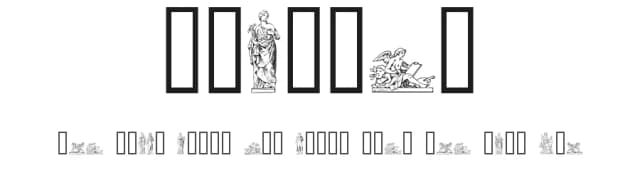
About Oktober 98 Font
Oktober 98 is a dingbat font designed by Listemageren. It includes 25 glyphs, a regular weight, and TTF (TrueType) format. Oktober 98 is free to download; check the license details on this page before commercial use. Dingbat fonts like Oktober 98 work best for icons, ornaments, bullet points, and decorative accents.
Oktober 98 Font is a versatile dingbats font that works for both headings and body text. Pair it with a contrasting sans-serif or serif font to add visual interest and a clear distinction between titles and body copy.
Oktober 98 Font
by Listemageren
Oktober 98 Font is a dingbats typeface by Listemageren, ideal for logos, invitations, branding, and creative projects.